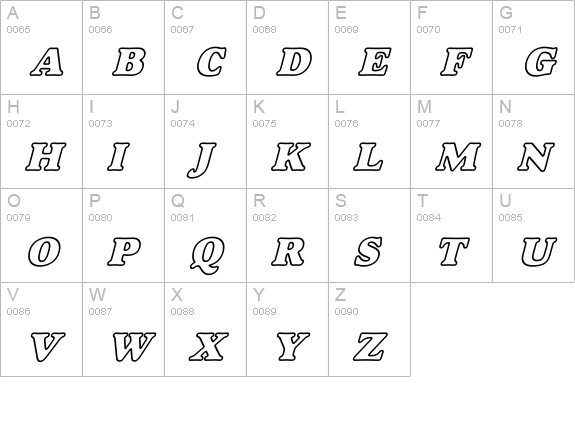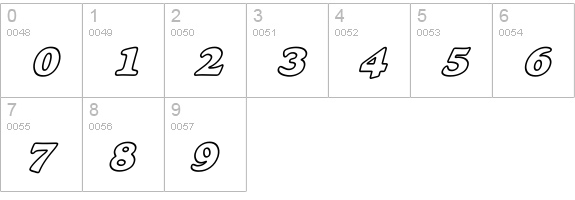
Alexuss Heavy Hollow W_BI Bold Italic is a heavy, high-impact, italic variant in the Alexuss typeface family \xE2\x80\x94 well suited to high-impact headlines, posters, and display advertising.
Alexuss Heavy Hollow W_BI Bold Italic font is a striking and bold typeface that exudes a sense of strength and modernity. Its heavy hollow design with a touch of italic styling adds a unique and dynamic flair to any project. Perfect for making a bold statement or adding emphasis to headlines and titles, this font commands attention and leaves a lasting impression. The best part is that Alexuss Heavy Hollow W_BI Bold Italic font is available for free download at FontsMarket.com. Whether you're a designer looking to add a powerful element to your work or simply want to play around with a new font style, this typeface is a fantastic choice. Don't miss out on the opportunity to enhance your designs with this eye-catching and versatile font. Download it now and let your creativity soar!